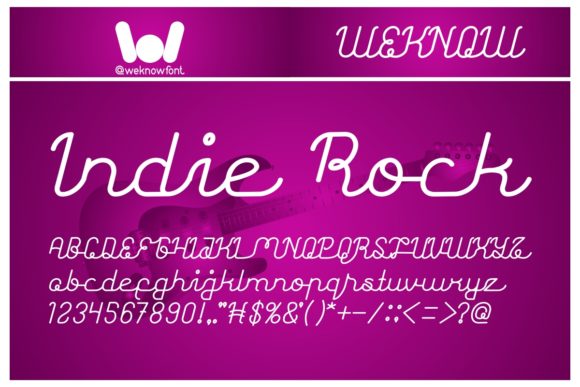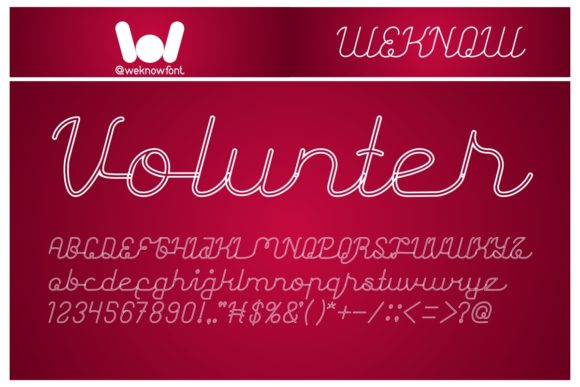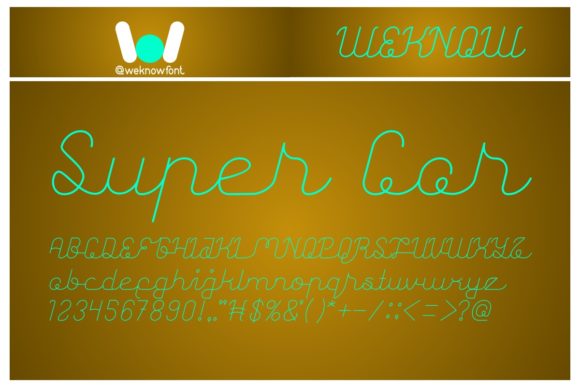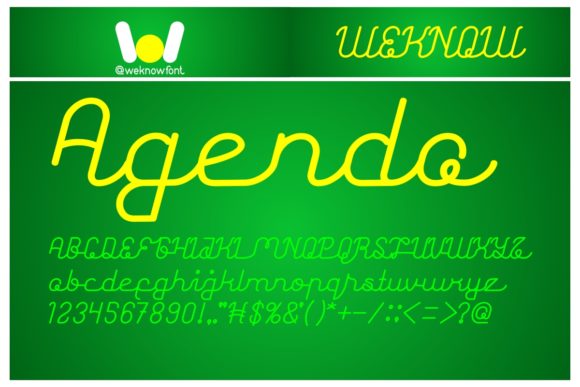
Astonishing Font
About Astonishing Font
Astonishing is a fun and cool font, ideal for adding an elemental touch to your designs. Astonishing is perfect for editorial and arts driven projects, and looks phenomenal at larger sizes.